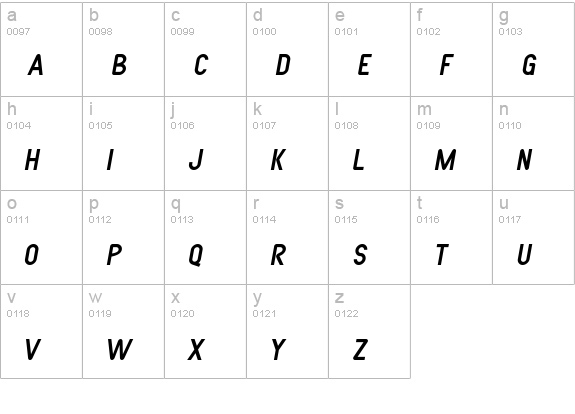
SF Atarian System Italic Font Details
SF Atarian System Italic is a distinctive, italic variant in the SF typeface family \xE2\x80\x94 well suited to design and typography projects.
Introducing the SF Atarian System Italic font, a striking typographic masterpiece that effortlessly blends futuristic elements with a touch of classic elegance. This font is the perfect embodiment of sleek design, making it an ideal choice for any project that demands a strong visual impact. With its distinctive italic style, SF Atarian System adds a dynamic and modern touch to any text. It brings a sense of movement and energy to your words, captivating the reader's attention and leaving a lasting impression. Whether you're designing a cutting-edge website, creating eye-catching advertisements, or crafting a futuristic logo, this font will undoubtedly elevate your work to new heights. One of the standout features of SF Atarian System Italic font is its versatility. Its clean lines and sharp angles make it suitable for a wide range of design purposes. From tech-related projects to fashion editorials, from gaming interfaces to movie posters, this font adapts effortlessly to different styles and themes, ensuring that your message is conveyed with utmost clarity and impact. What's even better is that SF Atarian System Italic font is available for free download at FontsMarket.com. Yes, you read that correctly - this remarkable typeface can be yours without spending a dime. FontsMarket.com, a renowned online platform for font enthusiasts, offers a vast collection of high-quality fonts, and SF Atarian System Italic font is one of the many gems waiting to be discovered. So why wait? Unleash your creativity and give your designs a futuristic edge with SF Atarian System Italic font. Its sleek and captivating aesthetics, combined with its effortless readability, will ensure that your projects stand out from the crowd. Download it for free today at FontsMarket.com and embark on a typographic journey like no other.